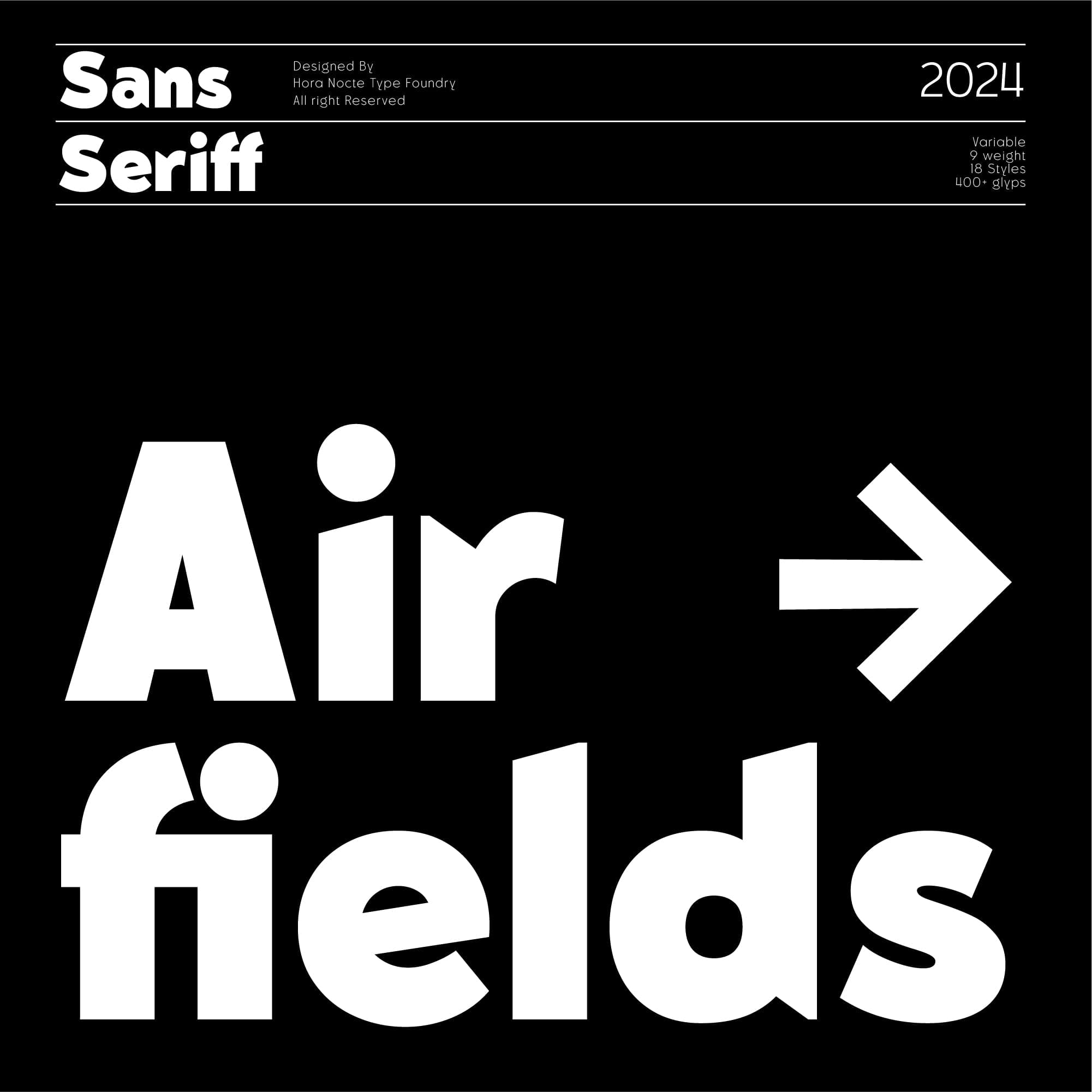
<p>HN Airfields is a versatile geometric sans-serif font inspired by airport signage, architecture, and the dynamic world of aviation. It features variable font capabilities and includes 18 distinct styles in both plain and italic versions, offering over 400 glyphs for maximum creative flexibility.<br> <br>The regular style is ideal for body text, while the bold to black styles are perfect for headlines, delivering a unique, strong, and professional aesthetic. HN Airfields is more than just a font—it’s a powerful design tool that can elevate your projects, from branding and posters to signage and other graphic designs.</p>